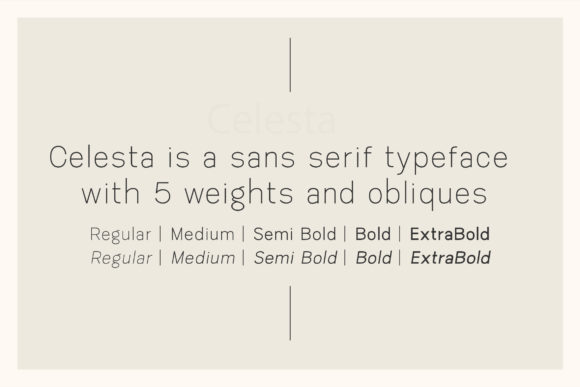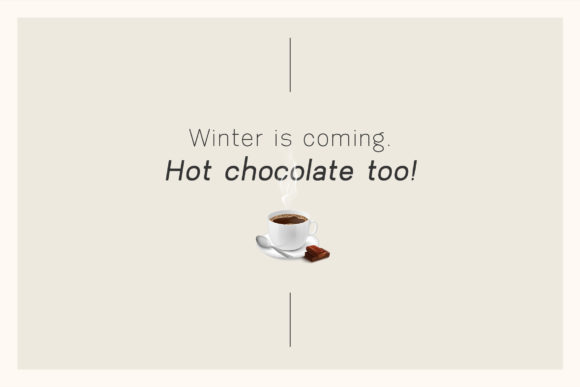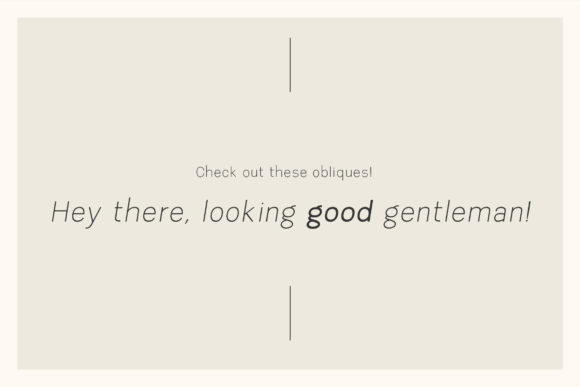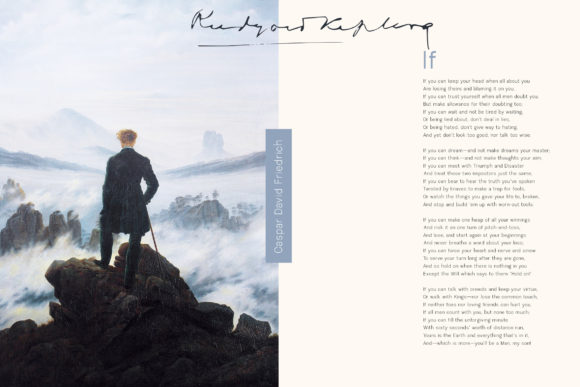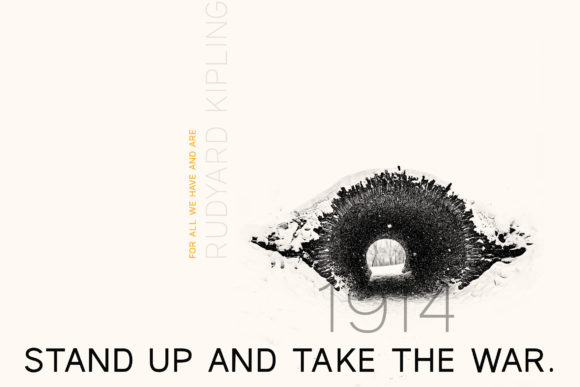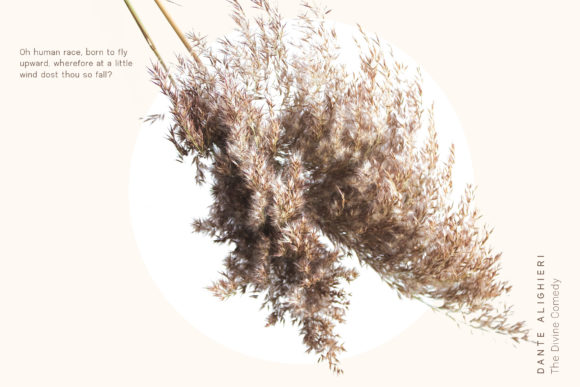
Discover the Elegance of Celesta Font: A Thin Lettered Sans Serif Marvel
Are you on the hunt for a font that exudes elegance, simplicity, and versatility? Look no further than the Celesta Font. This thin lettered and neat sans serif font has been making waves in the design community, and for good reason. Its clean lines, minimalist aesthetic, and adaptability make it an ideal choice for a wide range of projects. In this article, we’ll dive into the world of Celesta Font, exploring its features, uses, and benefits for designers and crafters alike.
The Characteristics of Celesta Font
So, what sets Celesta Font apart from other fonts? Here are a few key characteristics that make it a standout:
- Thin lettering: Celesta Font features delicate, thin letters that give it a light and airy feel. This makes it perfect for designs where you want to convey a sense of elegance and sophistication.
- Sans serif: The font’s sans serif design means that it lacks the small lines or flourishes that are characteristic of serif fonts. This gives Celesta a clean and modern look that’s perfect for digital and print designs.
- Neat and tidy: Celesta Font is meticulously crafted to ensure that every letter and line is perfectly proportioned. This attention to detail gives the font a neat and tidy appearance that’s hard to find in other fonts.
Uses for Celesta Font
One of the best things about Celesta Font is its versatility. Its thin lettering and sans serif design make it suitable for a wide range of projects, including:
- Branding and logos: Celesta Font is perfect for creating elegant and sophisticated brand identities. Its thin lettering and clean design make it ideal for logos, business cards, and letterheads.
- Digital and print designs: Whether you’re designing a website, social media graphics, or print materials like brochures and flyers, Celesta Font is a great choice. Its clean lines and minimalist aesthetic make it easy to read and visually appealing.
- Packaging and labels: If you’re designing packaging or labels, Celesta Font can add a touch of elegance and sophistication to your design. Its thin lettering and neat design make it perfect for product labels, packaging inserts, and more.
So, why should designers and crafters choose Celesta Font for their projects? Here are a few benefits:
- Ease of use: Celesta Font is incredibly easy to use, even for those who are new to design. Its clean lines and simple design make it easy to pair with other fonts and design elements.
- High versatility: As mentioned earlier, Celesta Font is suitable for a wide range of projects. This means that designers and crafters can use it for multiple projects, from branding and logos to digital and print designs.
- Time-saving: With Celesta Font, designers and crafters can save time and effort. Its clean design and elegant aesthetic mean that you can create professional-looking designs quickly and easily.
Tips for Using Celesta Font
Here are a few tips for getting the most out of Celesta Font:
- Pair it with other fonts: Celesta Font pairs well with a wide range of fonts, from bold and chunky fonts to elegant scripts. Experiment with different font combinations to find the perfect look for your design.
- Use it for headings and titles: Celesta Font is perfect for headings and titles, where its thin lettering and elegant aesthetic can really shine.
- Experiment with colors and textures: Celesta Font looks great in a wide range of colors and textures. Experiment with different design elements to find the perfect look for your project.
| Author | Corgi Astronaut |
In conclusion, Celesta Font is a thin lettered and neat sans serif font that’s perfect for designers and crafters looking to add a touch of elegance and sophistication to their projects. Its versatility, ease of use, and high level of adaptability make it an ideal choice for a wide range of projects, from branding and logos to digital and print designs. So why not give Celesta Font a try and see how it can elevate your designs?